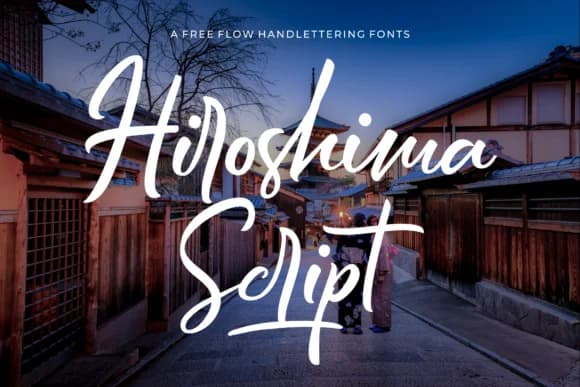
Hiroshima Script by 50Fox is a casual handwritten script that brings the organic, flowing quality of natural pen work to your digital designs. With its relaxed letterforms and freehand character, this typeface excels at infusing warmth and personality into projects that demand an authentic human touch rather than rigid geometric precision.
This versatile script works beautifully for wedding invitation suites where guests expect elegance paired with genuine handwritten charm, and it's equally at home on artisan product labels for boutique cosmetics or artisanal food packaging. Event posters, greeting cards, and personalized stationery all benefit from the typeface's approachable yet sophisticated presence. The slanted variant offers additional flexibility for designers seeking subtle stylistic variations and dynamic visual hierarchy within their layouts. Whether you're working with traditional printing methods or digital formats, Hiroshima Script adapts with ease.
Creating DIY craft signage or designing social media graphics for a creative brand becomes more impactful with this typeface. Hiroshima Script delivers that coveted handmade quality without sacrificing legibility or readability across different sizes and applications. Its flowing letterforms and natural rhythm make it a compelling choice for any project where authenticity and artistic flair take center stage. Discover Hiroshima Script on Creative Fabrica and bring this expressive, versatile typeface into your design toolkit.
Hiroshima Script Font is a script font that shines as a display or heading face. Pair it with a clean sans-serif or serif font for body text β the contrast creates a clear hierarchy while the two styles stay balanced and easy to read.